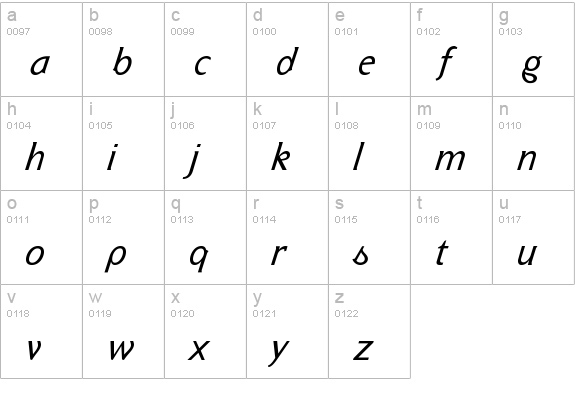
Formica-Italic Font Details
Formica-Italic is a distinctive, italic variant in the Formica typeface family \xE2\x80\x94 well suited to design and typography projects.
Formica-Italic font exudes elegance and sophistication with its sleek and graceful design. The italicized version of the Formica typeface adds a touch of flair and modernity to any project. Its smooth curves and stylish letterforms make it a perfect choice for adding a touch of class to your designs. And the best part? Formica-Italic font is completely free to download at FontsMarket.com. Whether you're working on a branding project, creating marketing materials, designing a website, or crafting invitations, Formica-Italic font will elevate your work to a whole new level. Download this exquisite font today and bring a touch of refinement to your creative projects.